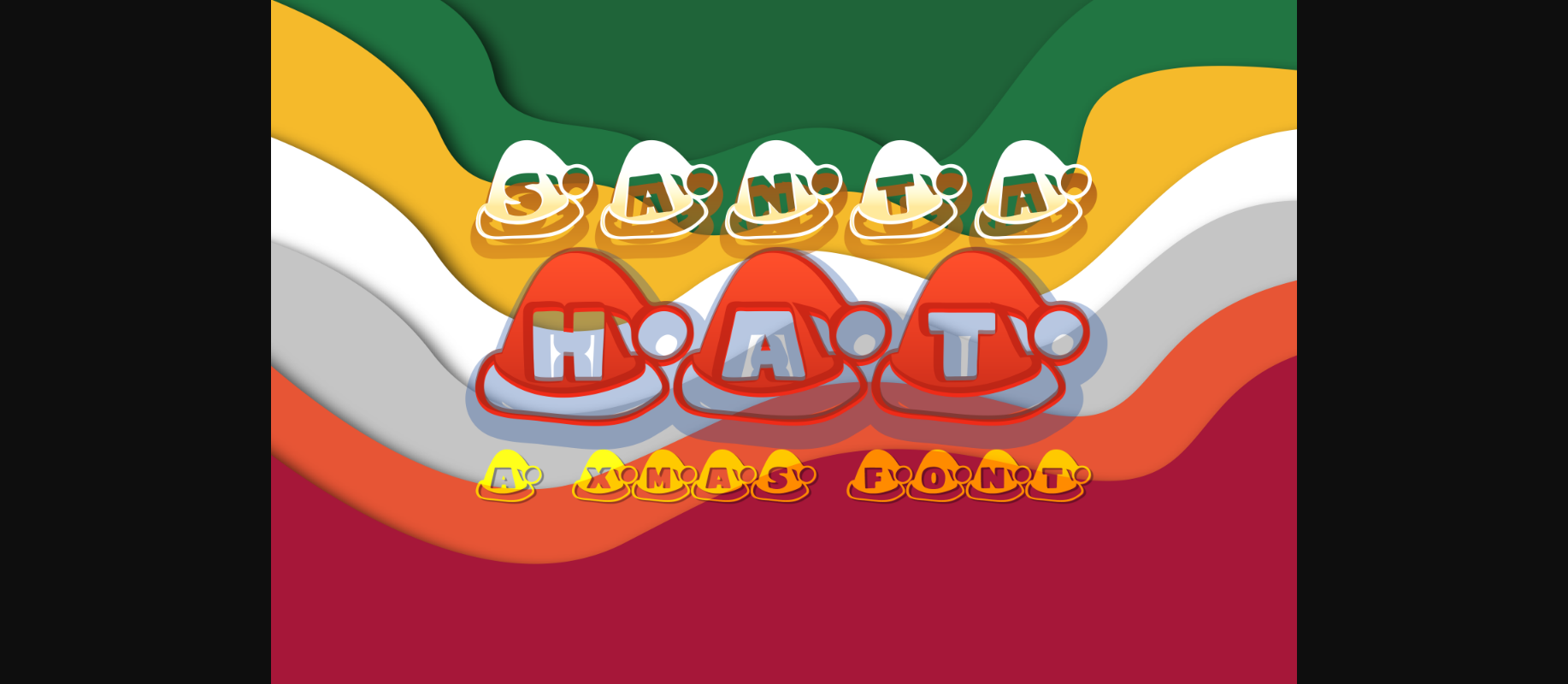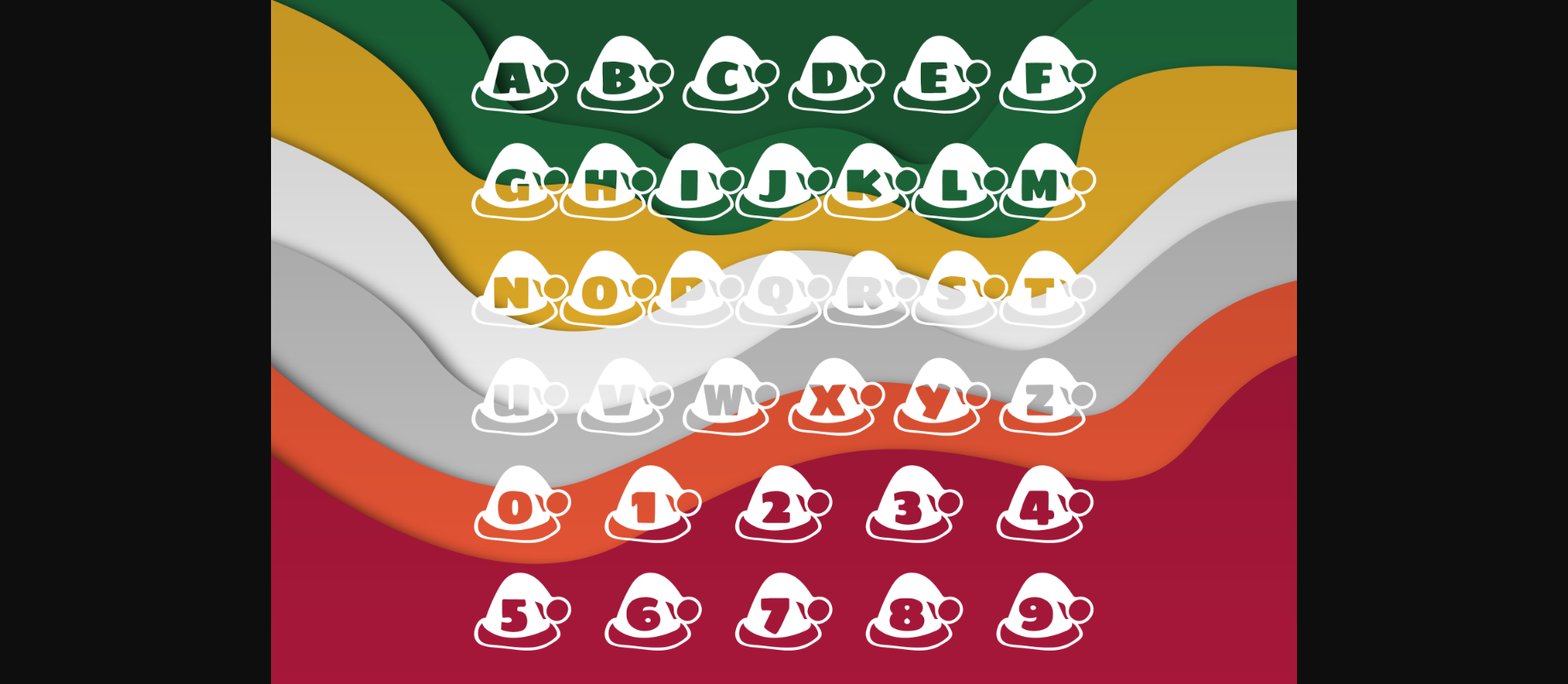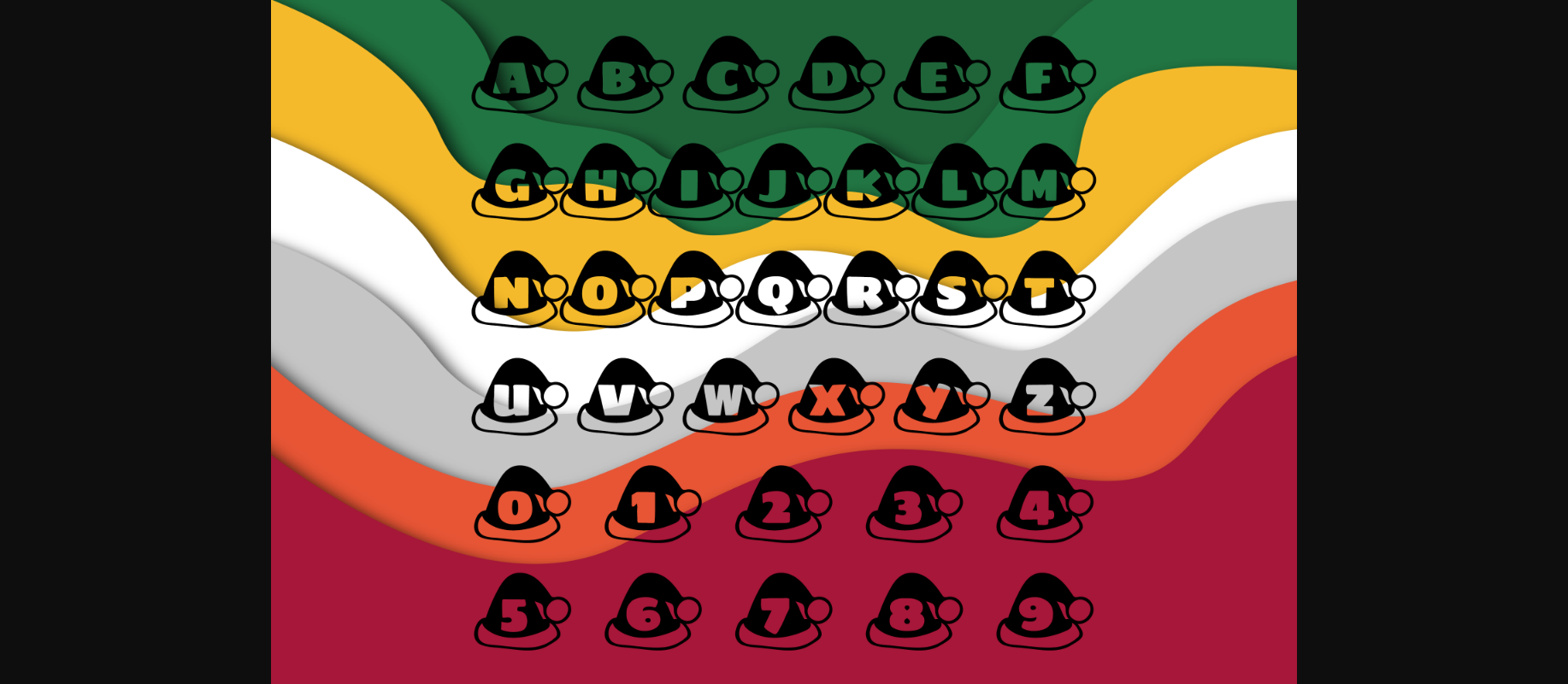
Santa Hat Font
About Santa Hat Font
Santa Hat is an incredibly cool and festive decorative font. Whether you use it for cartoon related designs, children games or just any creation that requires a lovely touch, this font will be an amazing choice.